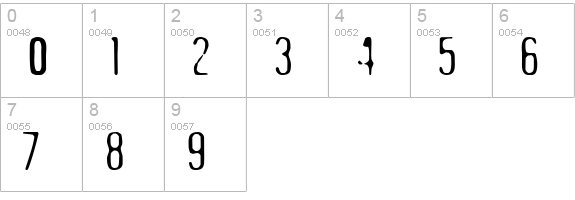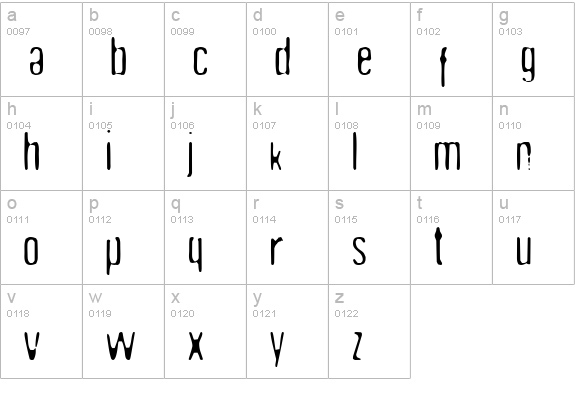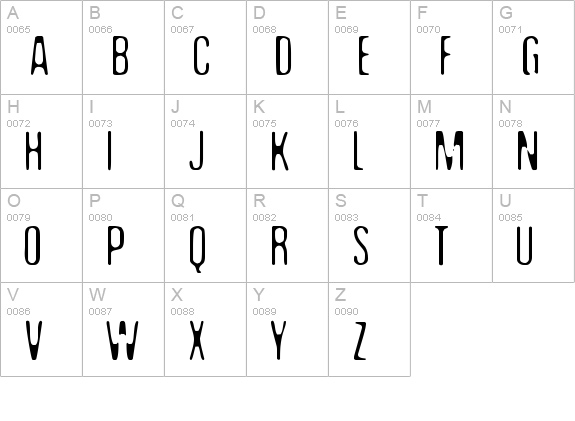
Undo35 Font Details
Introducing Undo35, a timeless and versatile font that embodies the perfect balance between elegance and modernity. The smooth curves and clean lines of this typeface make it a true masterpiece, suitable for a wide range of design projects. Undo35 is meticulously crafted to deliver a sophisticated and refined look while maintaining a sense of approachability. Its meticulously designed letterforms exude confidence and professionalism, making it an ideal choice for branding, headlines, logos, and more. With its wide range of weights and styles, Undo35 offers endless possibilities for creative expression. Whether you're looking for a bold and impactful statement or a subtle and understated elegance, this font has got you covered. But what sets Undo35 apart is not just its exceptional design; it's also the fact that it is available for free. That's right, you can freely download and use Undo35 for both personal and commercial projects, thanks to its availability on FontsMarket.com. This means that designers, creatives, and typography enthusiasts alike can enjoy the beauty and versatility of this font without any limitations. So why wait? Elevate your designs with the timeless charm of Undo35 and experience the freedom of creativity. Download Undo35 today at FontsMarket.com and unlock a world of possibilities for your next project.